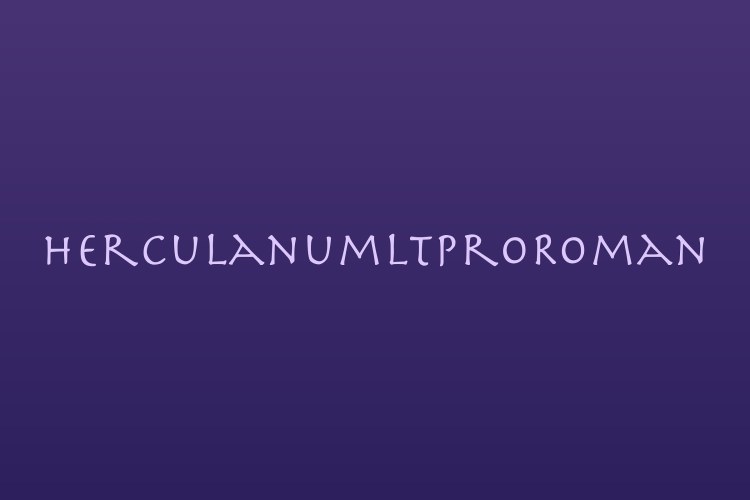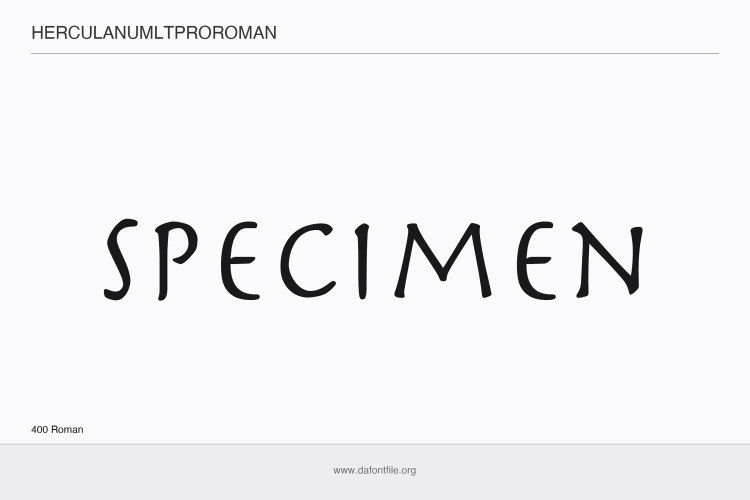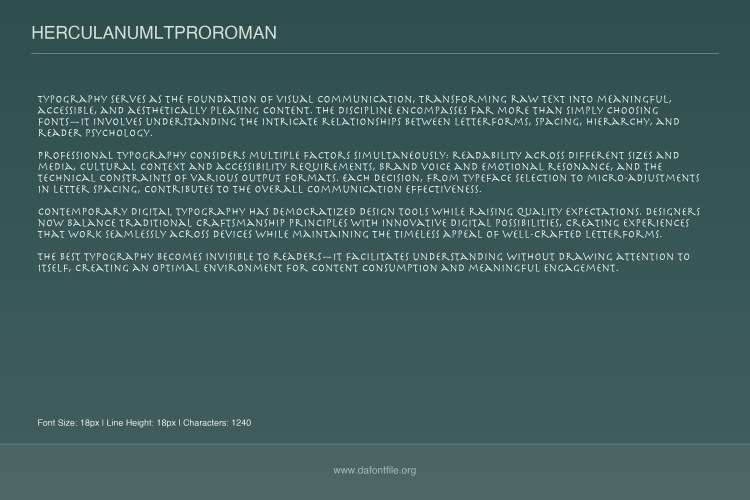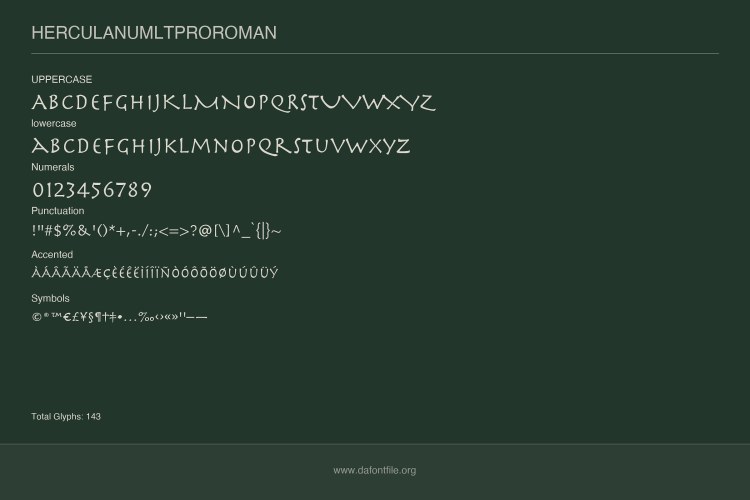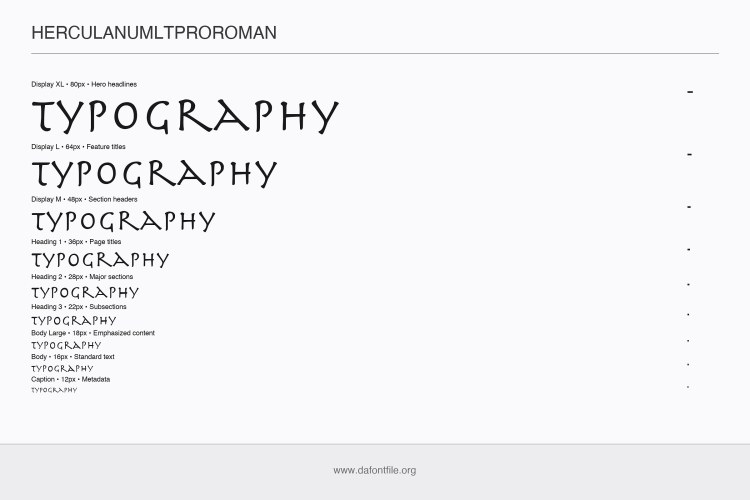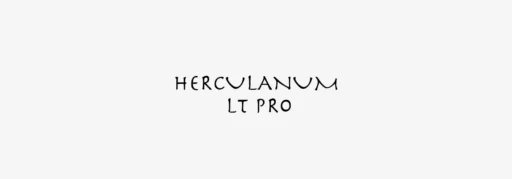
Herculanum LT Pro Font
Herculanum LT Pro brings the strength of ancient letterforms into modern design. With bold strokes and a timeless style, it works well in posters, logos, book covers, and branding that needs a powerful and historic touch. Designers choose Herculanum when they want their projects to carry both tradition and impact.
Herculanum LT Pro Font is a Display Fonts font that brings a professional and versatile look to your projects. Herculanum LT Pro brings the strength of ancient letterforms into modern design.